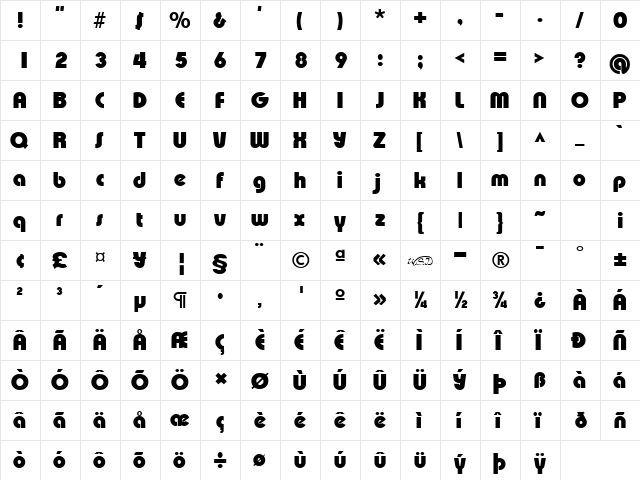
XpressiveBlack Regular
Design Context for XpressiveBlack Typeface
XpressiveBlack offers clean, dependable letterforms without strong stylistic allegiance, making it a practical choice for designers who need flexibility.